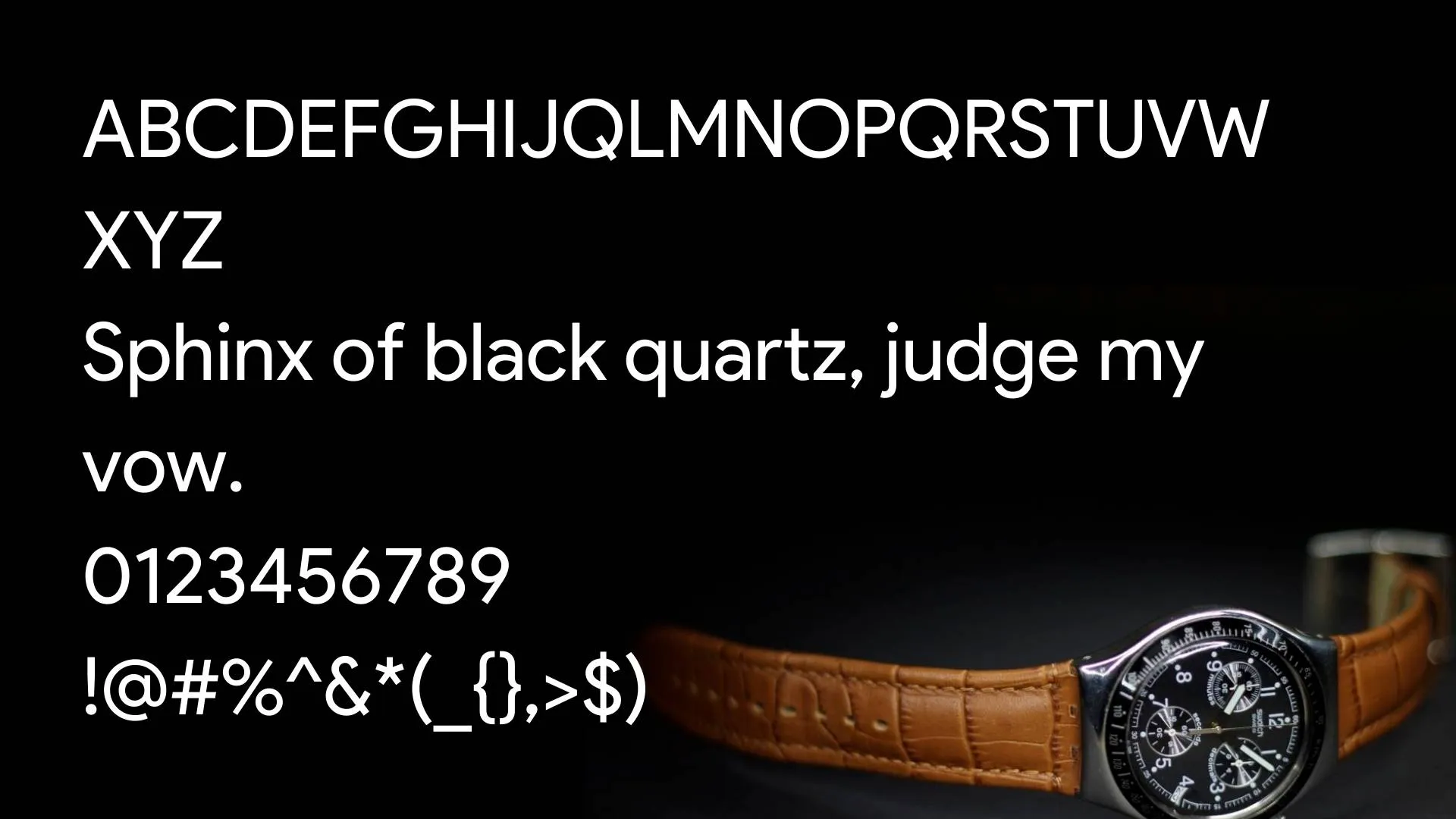
Product Sans Font is a very charming typeface that is very famous in the font market because of its texture. This font is designed by a very famous company named Google. On 1st September 2015, this font replaced the old Google logo.
This typeface has the ability to give your design an astonishing and prominent texture appearance. The typeface letters are very suitable for long texts and also small size text displays. This typeface style is also best to utilize on display designs.
View of Product Sans Font
Product Sans Font Info
| Name | Product Sans Font |
| designer | |
| Style | Sans-serif |